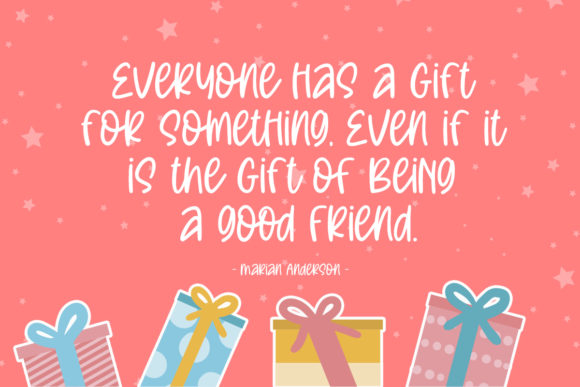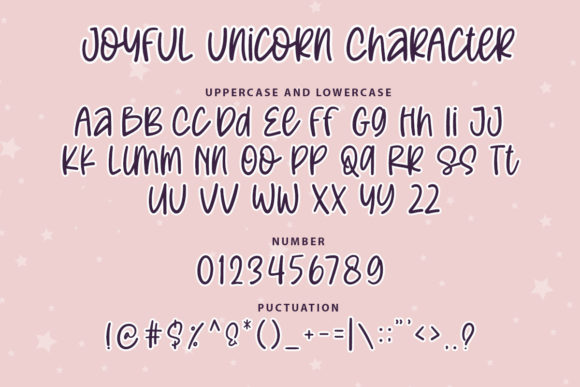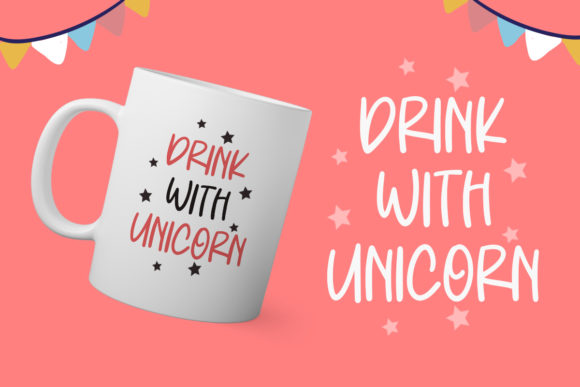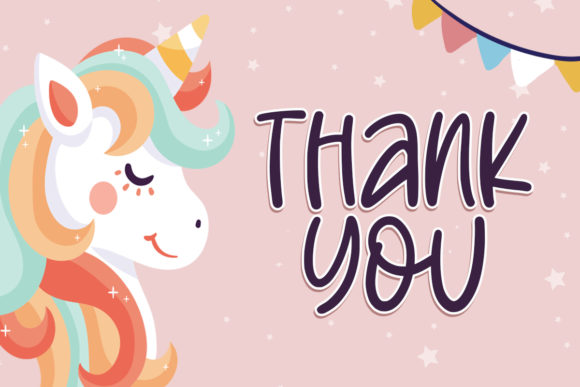
Joyful Unicorn Font
Joyful Unicorn embodies fun, quirkiness and authenticity. This enchanting handwritten font will turn any creative idea into a true standout.